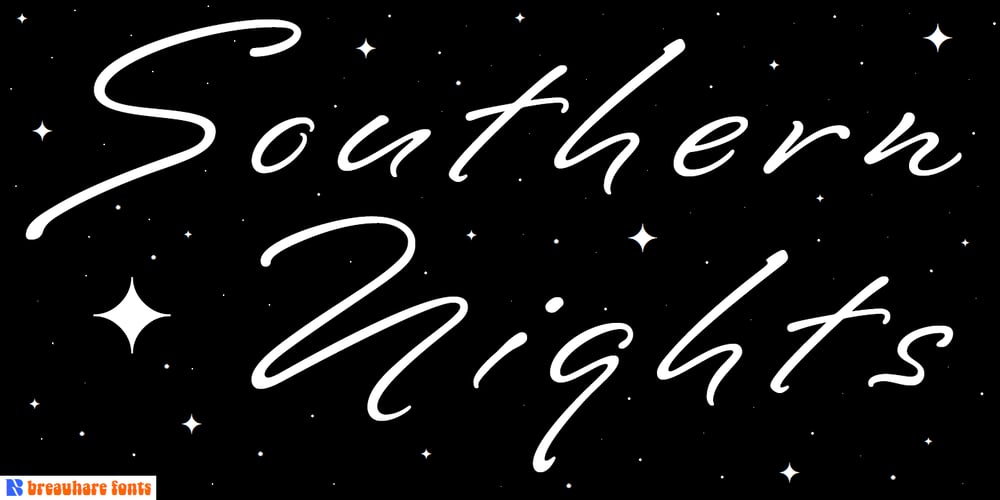
Southern Nights
Southern Nights font
Southern Nights Font Family was designed by Harry Warren and published by Breauhare. Southern Nights contains 1 styles and family package options. Based on the hit album by Glen Campbell, Southern Nights is the font with a style that’s “free as a breeze,” as the song says. It’s fun and casual, yet it has a flair for fashion and elegance. It also has an art nouveau look which lends itself to greeting cards as well as the branding of perfume, clothing, retailing, dining, and other luxury/high-end uses. This font includes alternate characters for the upper R, S, and T, the lower g and z, plus ligatures that include a double lower t and double lower l (L). As the song might say, I apologize to anyone who can truly say that they have found a better font! Digitized by John Bomparte.